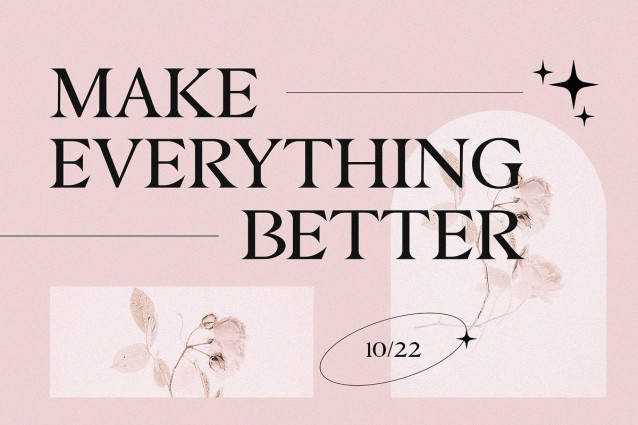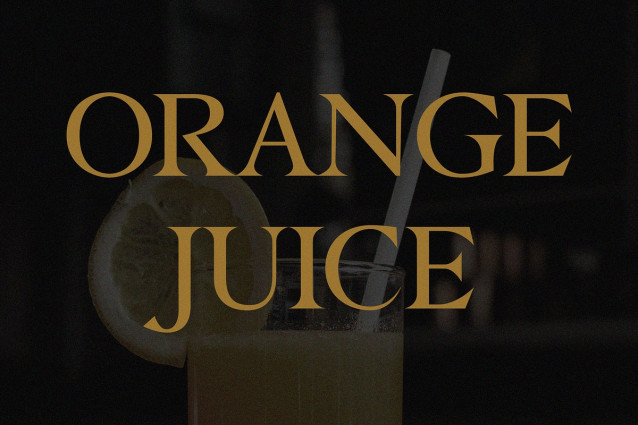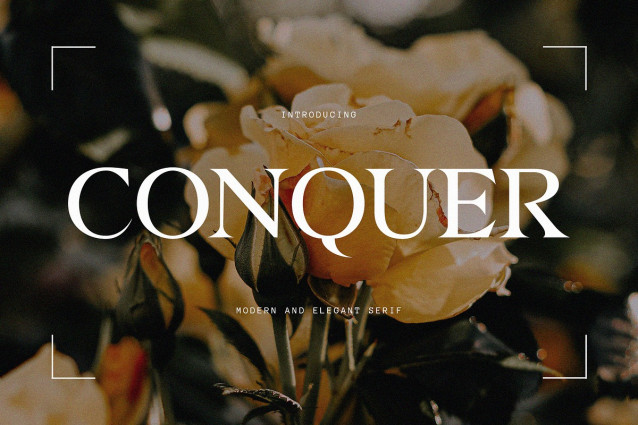
Conquer Font
Conquer Font, a modern indie serif font that captures the essence of creativity and individuality. With its unique and organic letterforms, blending a mix of curves and angles, Conquer brings a sense of playfulness and spontaneity to your design. This contemporary and indie-inspired font is ideal for a range of applications, from music branding to editorial design. Conquer’s distinct and expressive style is guaranteed to infuse character and personality into your project, making it stand out with creativity and flair.